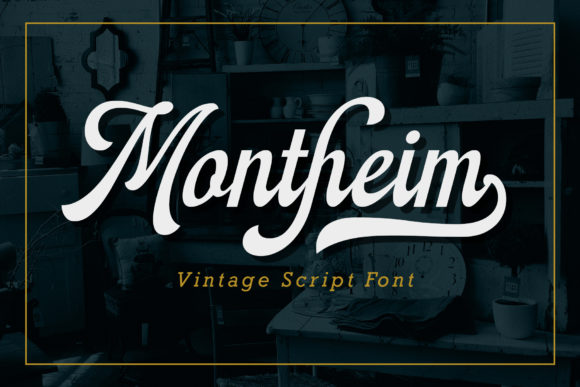
In a realm where words dance on the page, one font stands out with its timeless grace and elegance: Montheim Font. Its vintage script, reminiscent of a bygone era, captivates the soul with its intricate swashes and delicate strokes. Designed by the visionary minds at Arterfak Project, Montheim Font is a masterpiece that breathes life into your digital creations.
Step into a world of wonder, where words become art and your imagination takes flight. Montheim Font is more than just a font; it's a journey through history, a testament to the enduring beauty of the written word. Its vintage charm evokes nostalgia, while its modern sensibility ensures it remains relevant and captivating.
With Montheim Font, you hold the key to unlocking a treasure chest of creative possibilities. Whether you're a seasoned designer or just starting your creative journey, this font will elevate your work to new heights. Its versatility knows no bounds, lending itself seamlessly to a myriad of projects. Whether it's a captivating logo, an eye-catching social media post, or an unforgettable wedding invitation, Montheim Font is your faithful companion, transforming your ideas into visual masterpieces.
Get swept away by the elegance of Montheim Font, and let your creativity soar. Its timeless appeal ensures that your creations will stand the test of time, leaving a lasting impression on all who encounter them. Montheim Font is more than just a font; it's an experience that will awaken your inner artist and ignite your passion for the written word. Embrace its vintage charm today and embark on a creative journey like never before.